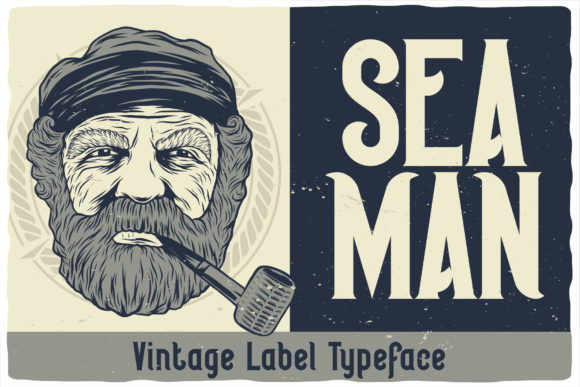
Behold, the Seaman Font, a typographic masterpiece that exudes boldness and vintage charm. This display font is not just another addition to your font collection; it's an investment in design excellence. With its unmistakable presence, Seaman Font has the power to transform any creative project into a visual masterpiece.
Immerse yourself in the world of Seaman Font, where retro elegance meets modern functionality. Its carefully crafted characters, reminiscent of a bygone era, add a touch of nostalgia to your designs. Yet, this font is far from being stuck in the past. It seamlessly blends classic aesthetics with contemporary versatility, making it suitable for a wide range of design applications.
Whether you're crafting logos, posters, social media graphics, or website designs, Seaman Font is your trusted companion. Its distinct letterforms command attention, leaving a lasting impression on your audience. Unleash your creativity and let Seaman Font elevate your designs to new heights.
But what truly sets Seaman Font apart is its exceptional legibility, even at smaller sizes. This makes it the perfect choice for projects where space is limited, such as mobile app interfaces, product packaging, or fine print documents. Its clarity and precision ensure that your message is conveyed effectively, without sacrificing visual impact.
With Seaman Font, you'll discover a font that's both timeless and trendy, a font that seamlessly blends heritage with innovation. Its vintage charm evokes a sense of nostalgia, while its modern versatility ensures that your designs stay relevant and impactful.
So, if you're seeking a font that's both aesthetically pleasing and functionally versatile, look no further than Seaman Font. Its bold personality and undeniable charm will captivate your audience, leaving them in awe of your design prowess.
Embark on a creative journey with Seaman Font and let your designs speak volumes. Whether you're a seasoned designer or just starting out, this font is your secret weapon to create stunning visuals that leave an unforgettable impression.